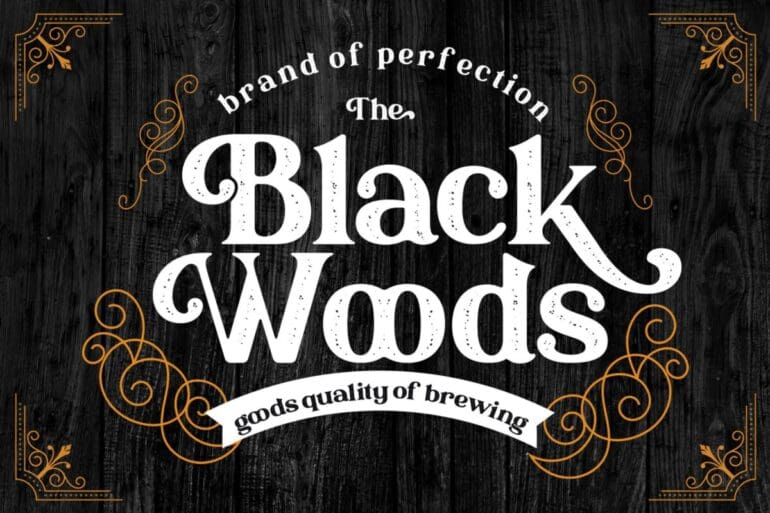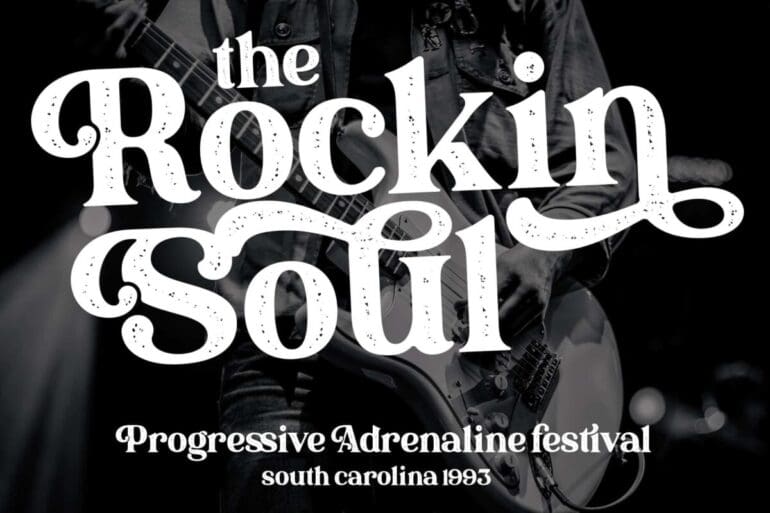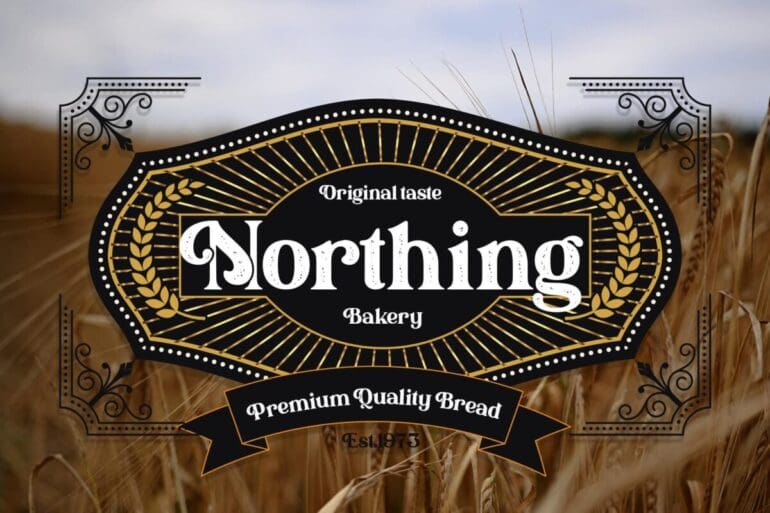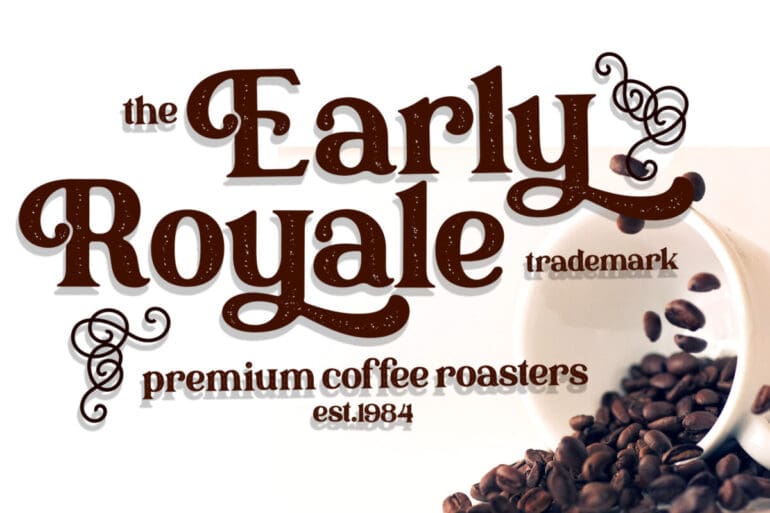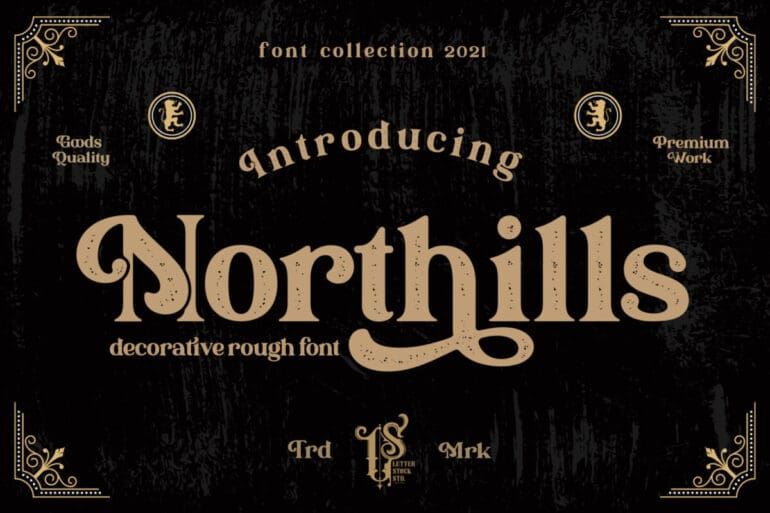
Northills Font
Northills Font. This pair was inspired by the great lettering poster design that I saw on some coffee shops, It was crafted by hand especially to add a natural handmade feeling in its brand identity then I make it clean with pentool.